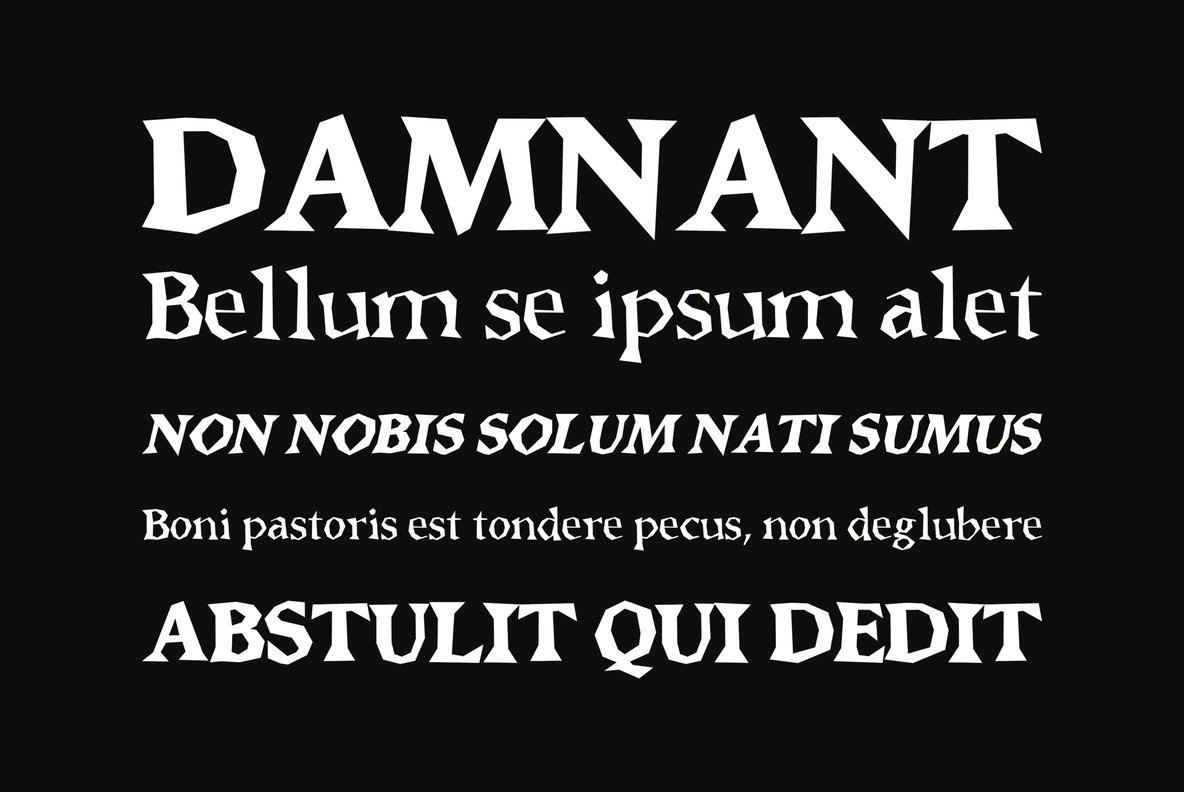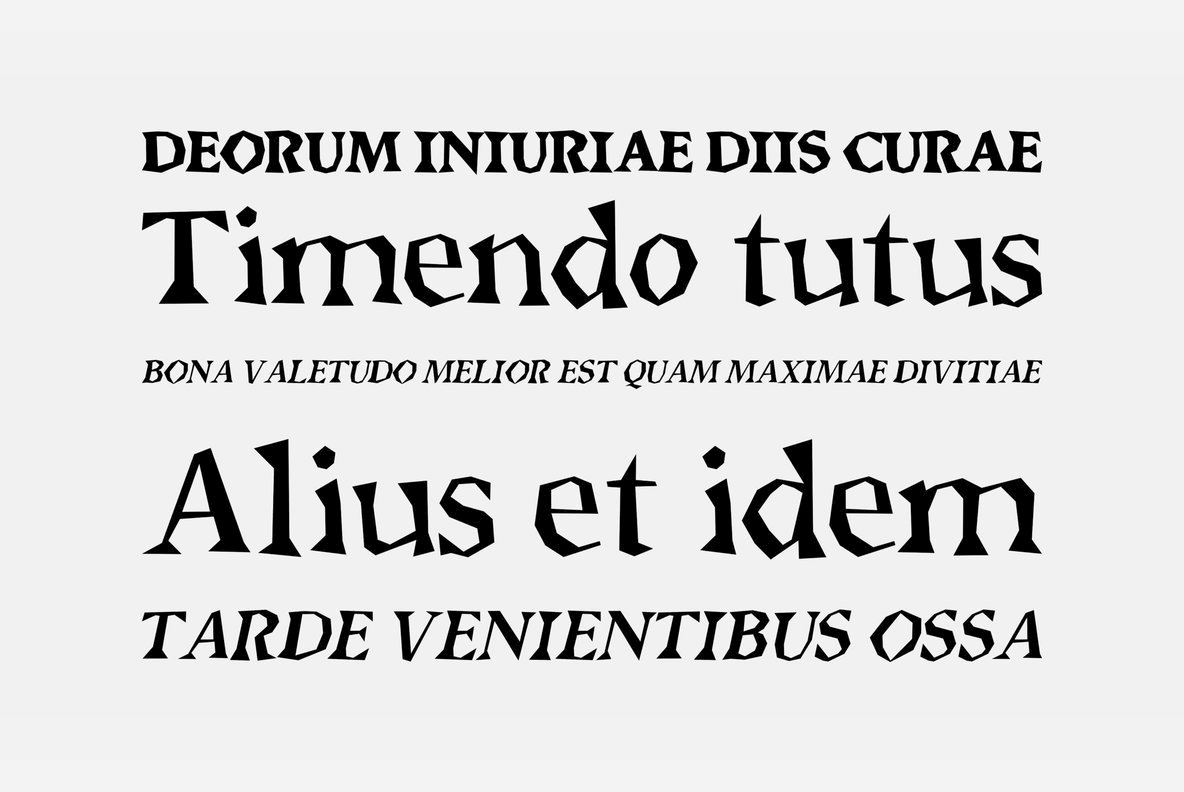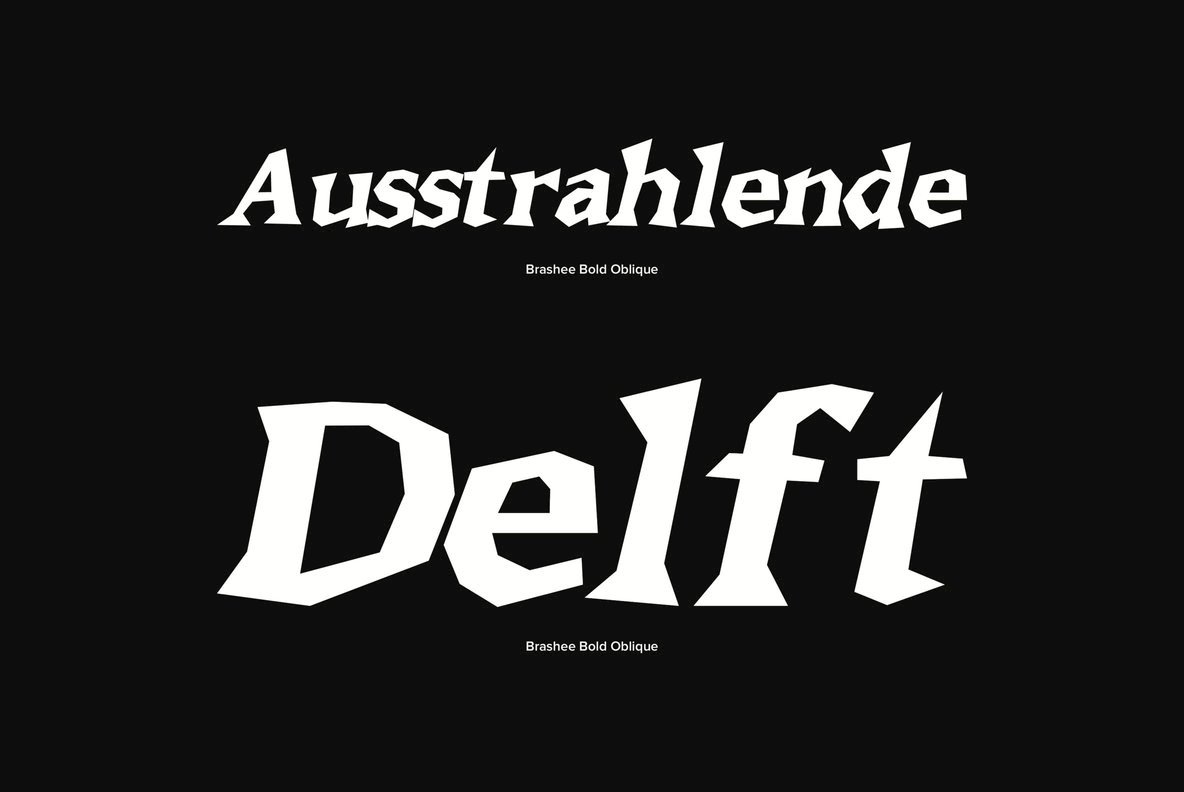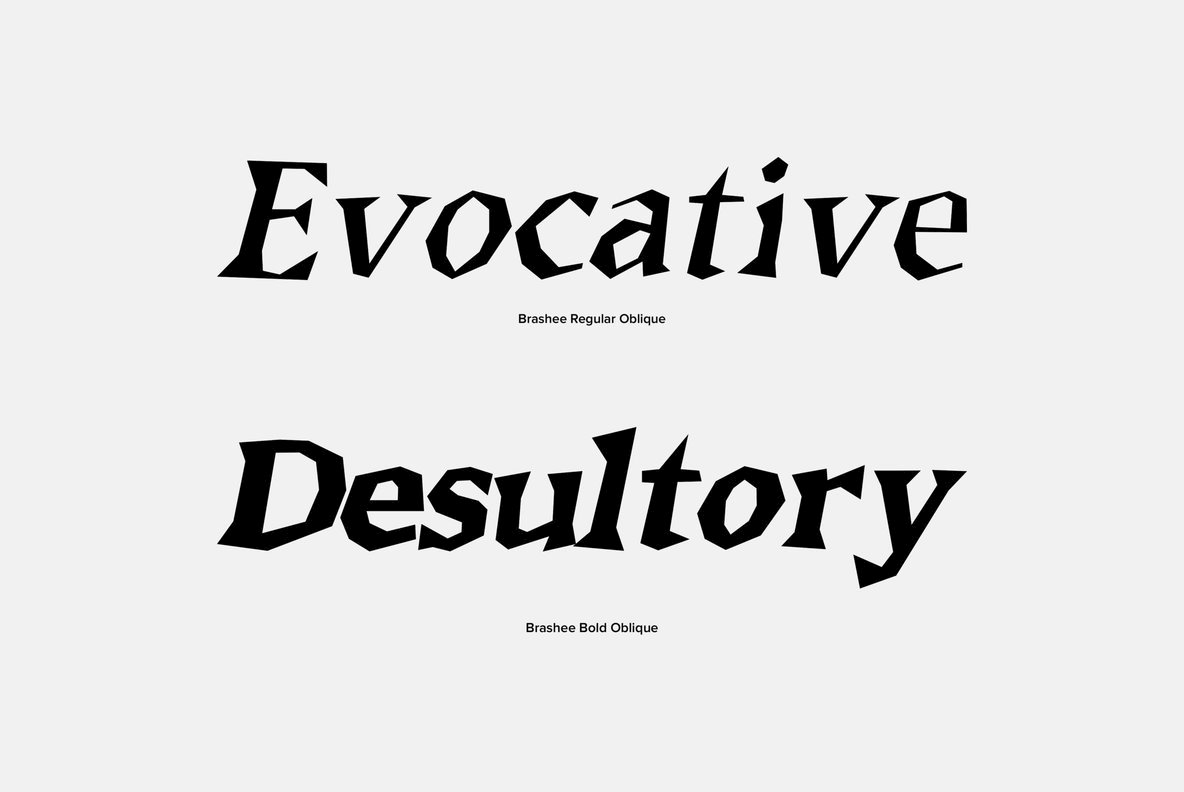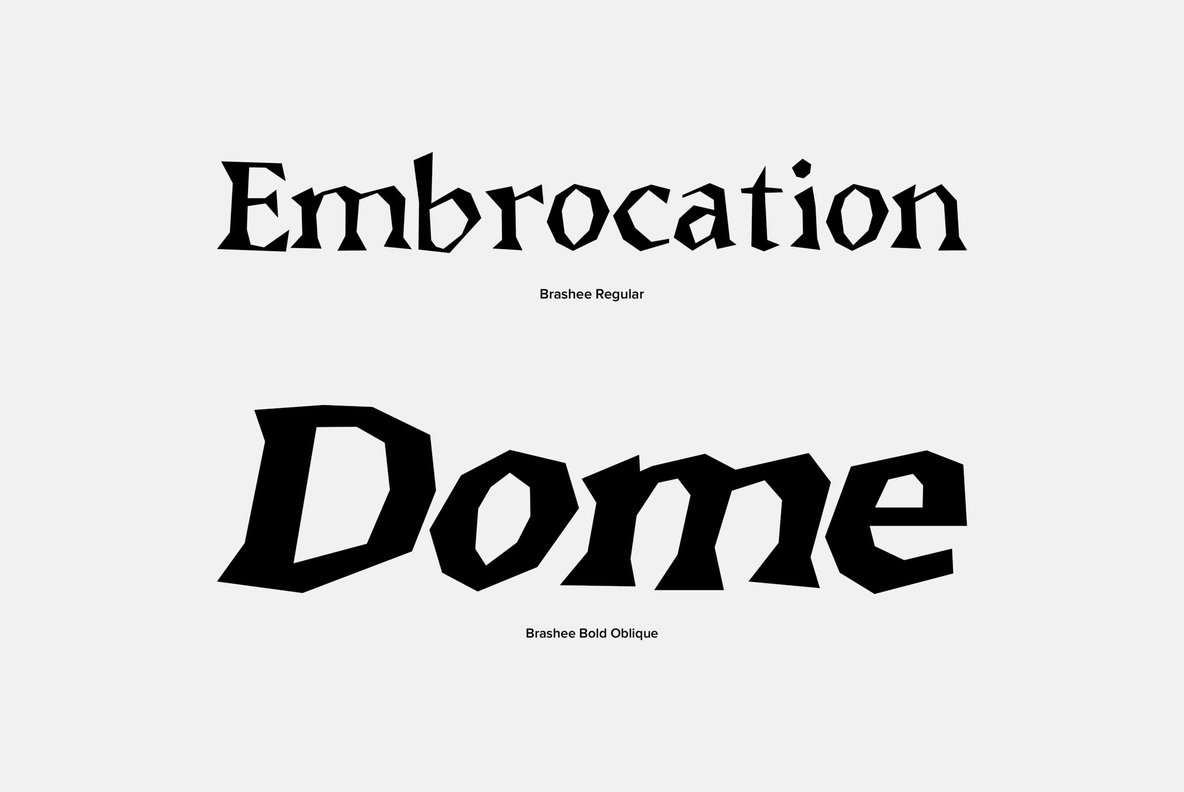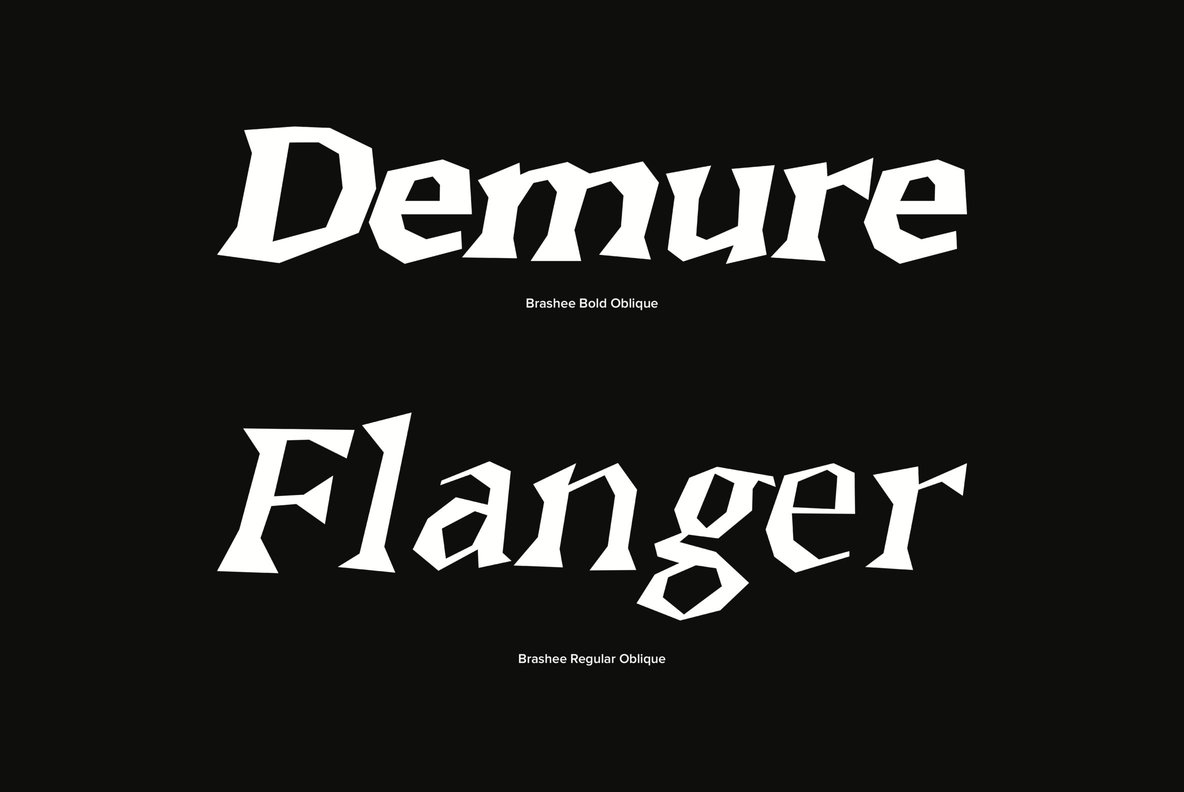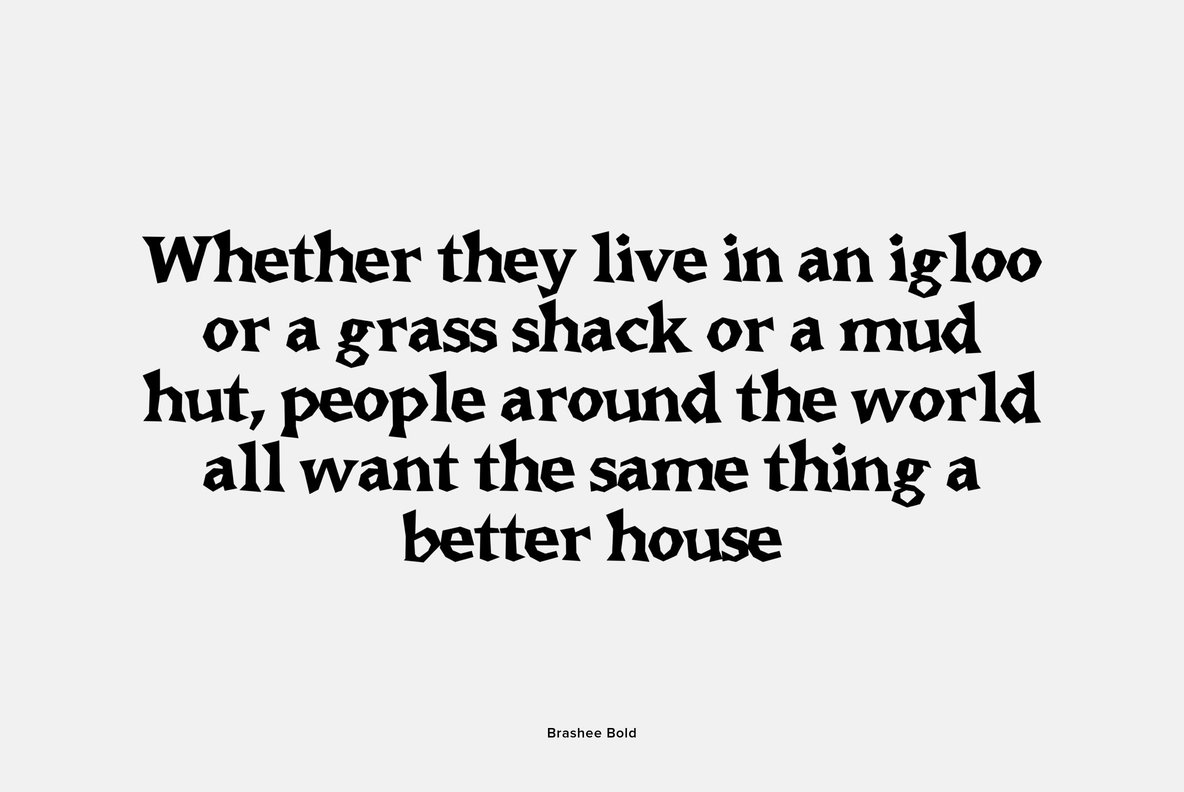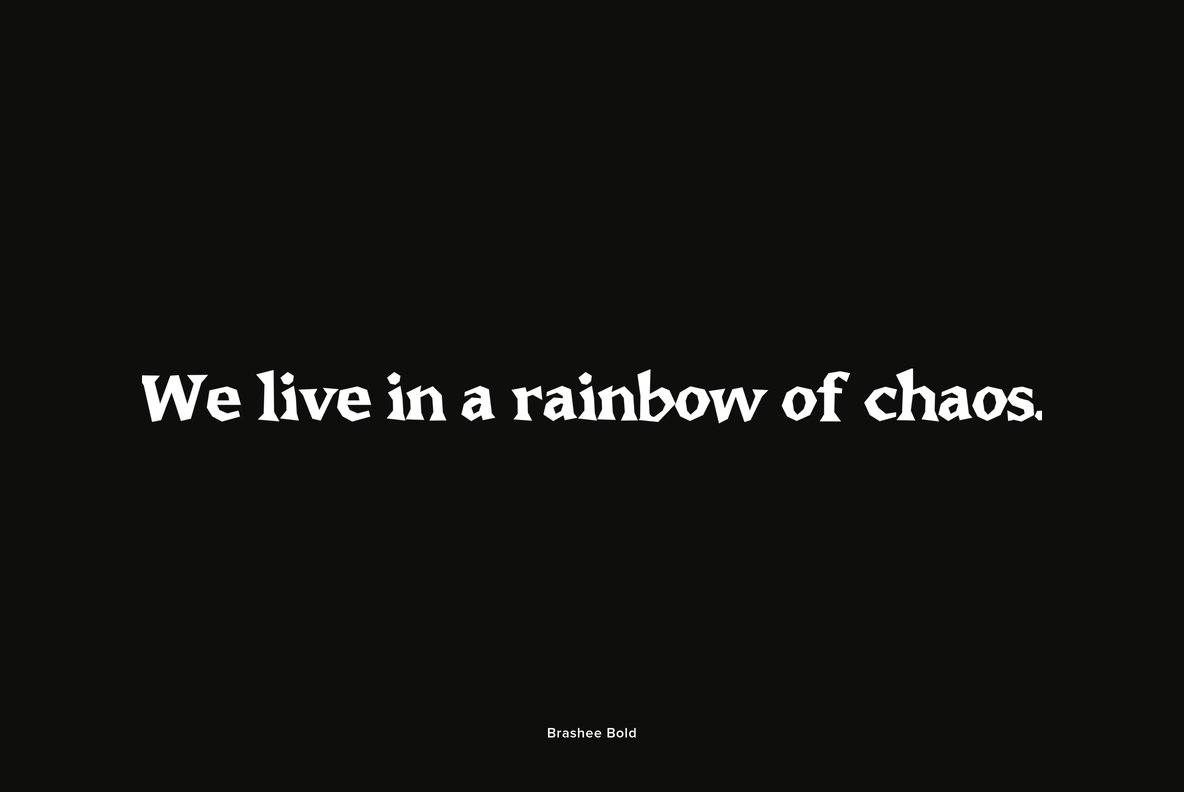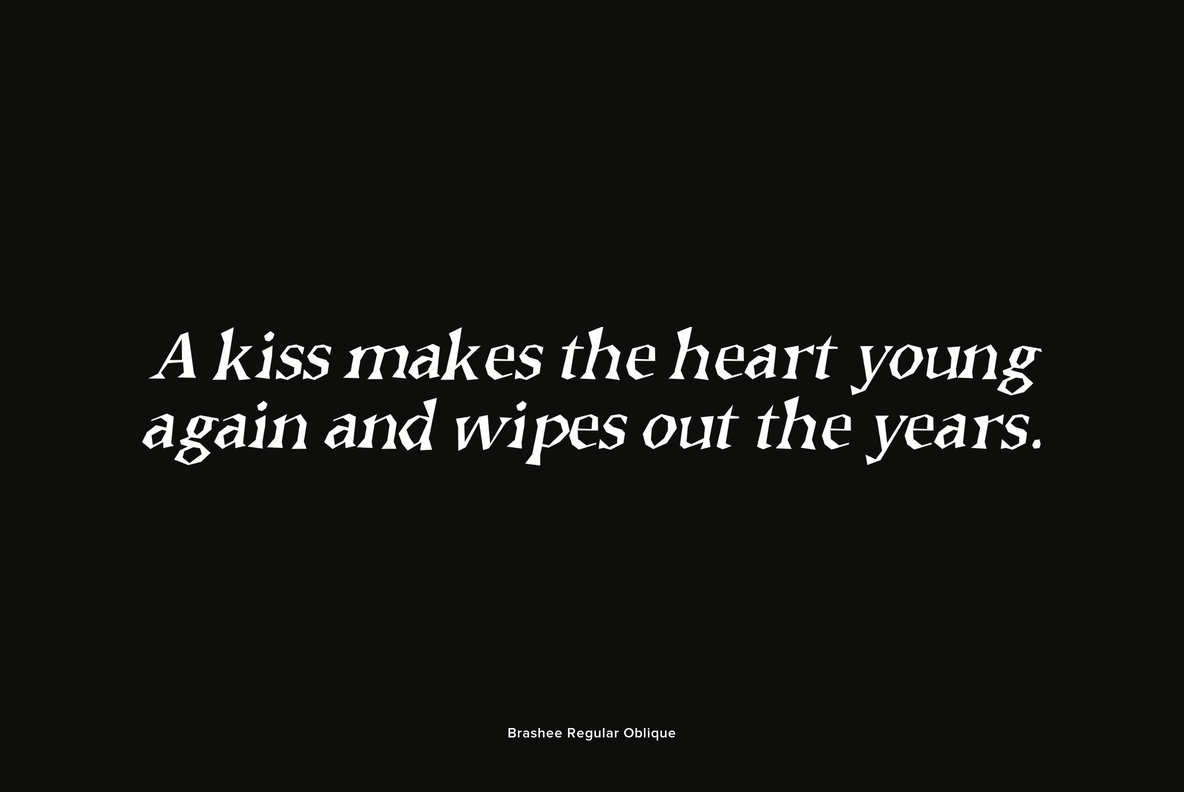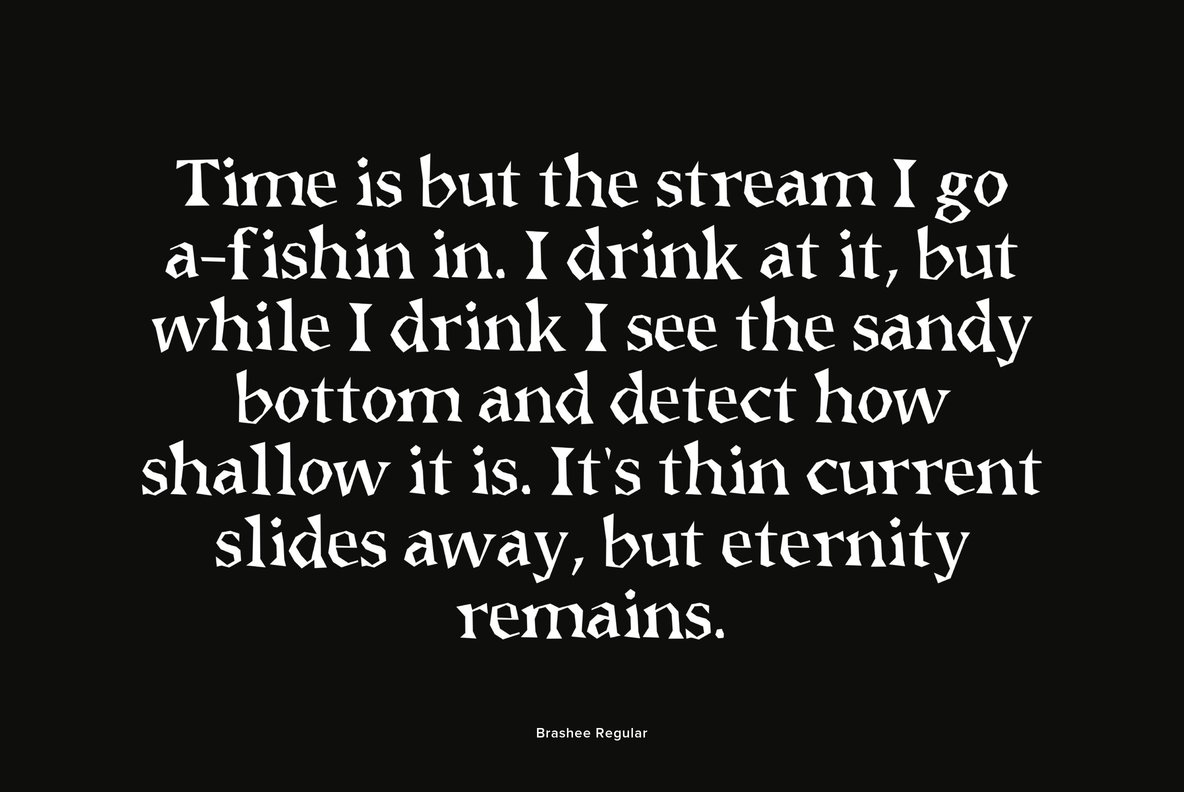
Brashee Font
The Angulatte family is a serif font whose characters are all drawn with straight lines.
Gerald Gallo is a professional graphic designer.While designing trademarks and logotypes, Gerald often designed unique lettering. It was a natural step to create entire alphabets from some of these designs. However, it was very difficult to have a font produced before the advent of the personal compute...